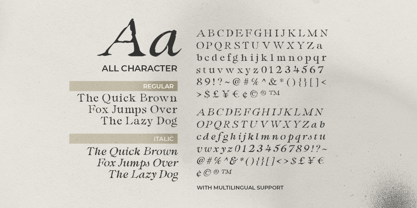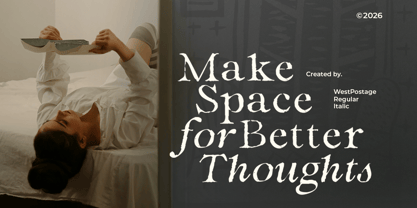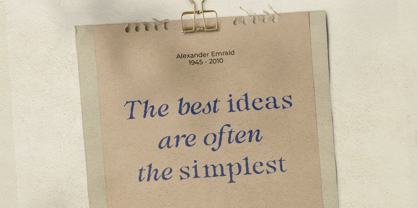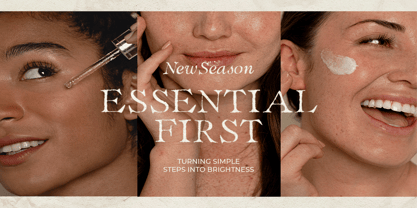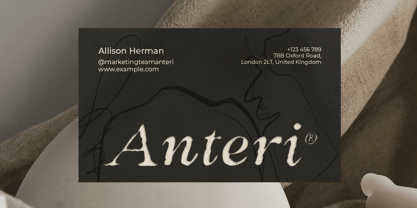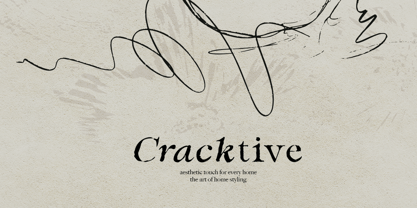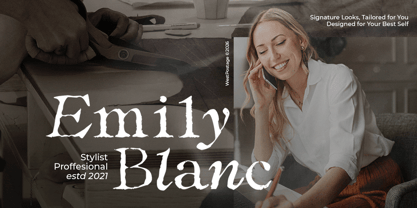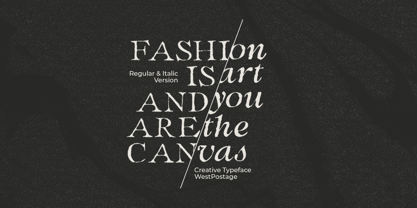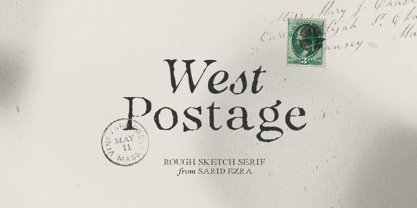
West Postage
von Sarid Ezra
Die Schriftfamilie West Postage wurde von Sarid Ezra entworfen und von Sarid Ezra veröffentlicht. West Postage enthält 2 Stile und Familienpaketoptionen. Mehr über diese Familie
West Postage is a rough sketch-inspired organic serif font family that comes with a beautifully crafted true italic style, designed to bring a natural handwritten feel to your creative projects. With its imperfect strokes and authentic character, this font adds warmth, elegance, and personality to any design. West Postage is perfect for creating eye-catching logotypes, wedding invitations, branding materials, quotes, packaging, editorial layouts, social media graphics, and other artistic projects that need a handcrafted touch. The included italic version enhances the overall aesthetic, allowing your designs to feel more expressive, stylish, and visually stunning. In addition, West Postage supports multiple languages, making it suitable for both local and international design needs.